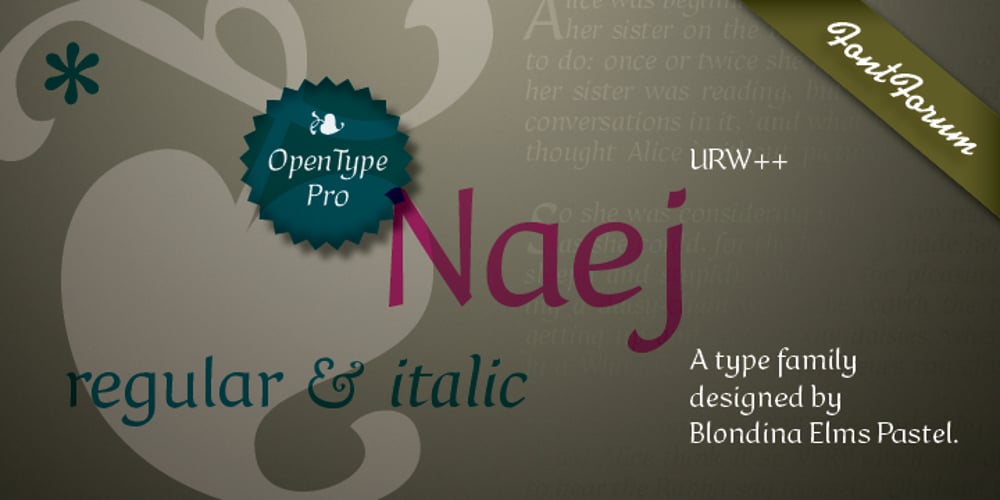
Naej Font Family was designed by Blondina Elms Pastel and published by URW Type Foundry. Naej contains 2 styles and family package options. Naej is a font family for recreational children’s storybooks. It is somewhat neohumanist in design, organic rather than mechanical. Calligraphic, with a humanist axis, Naej connotes the flavor of the Renaissance letters. Modulated stroke, modest x-height, modest contrast, large counters and apertures. This humanist influence has led to a typeface design that is legible, fun, and inviting with a touch of elegance.